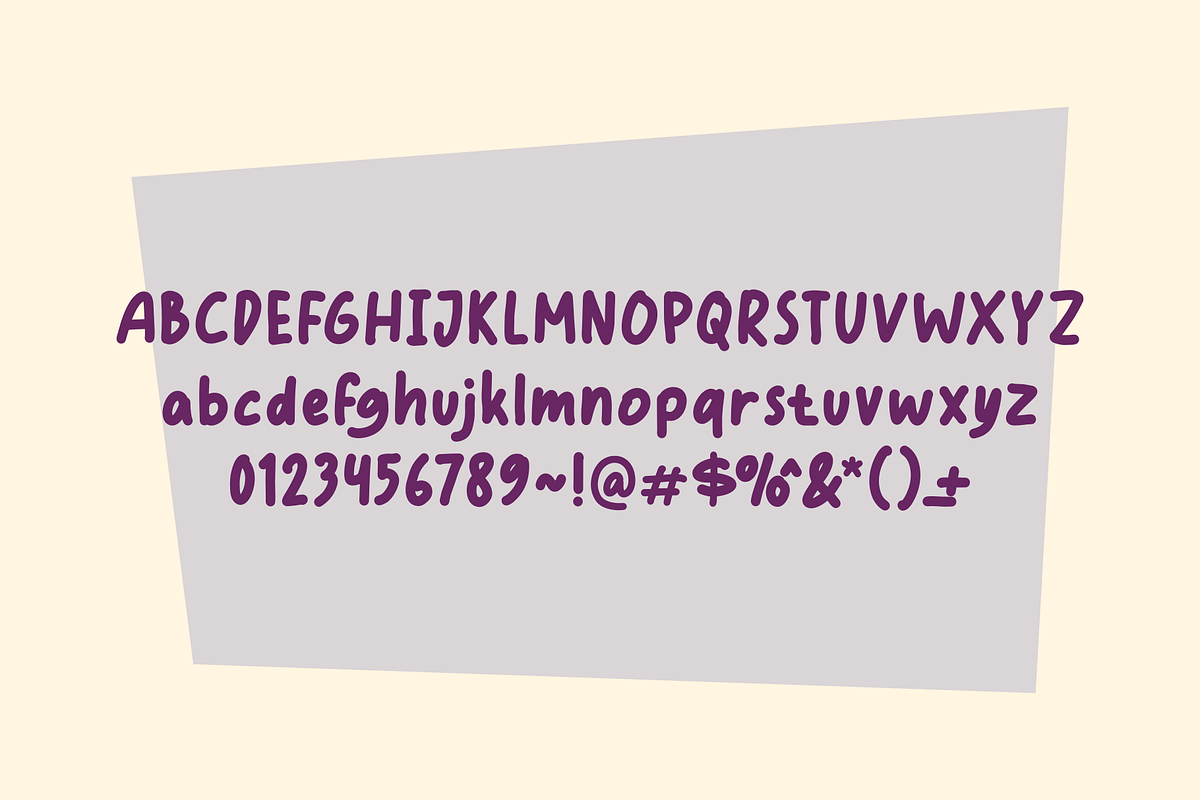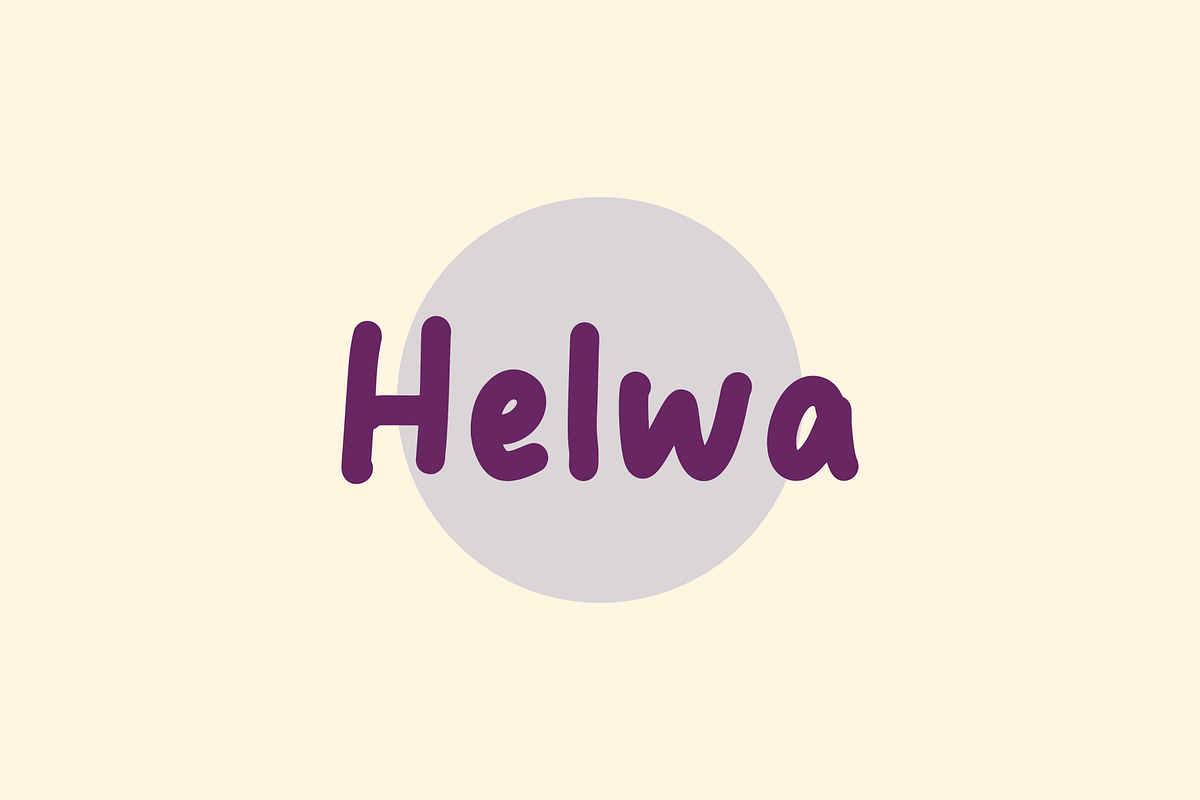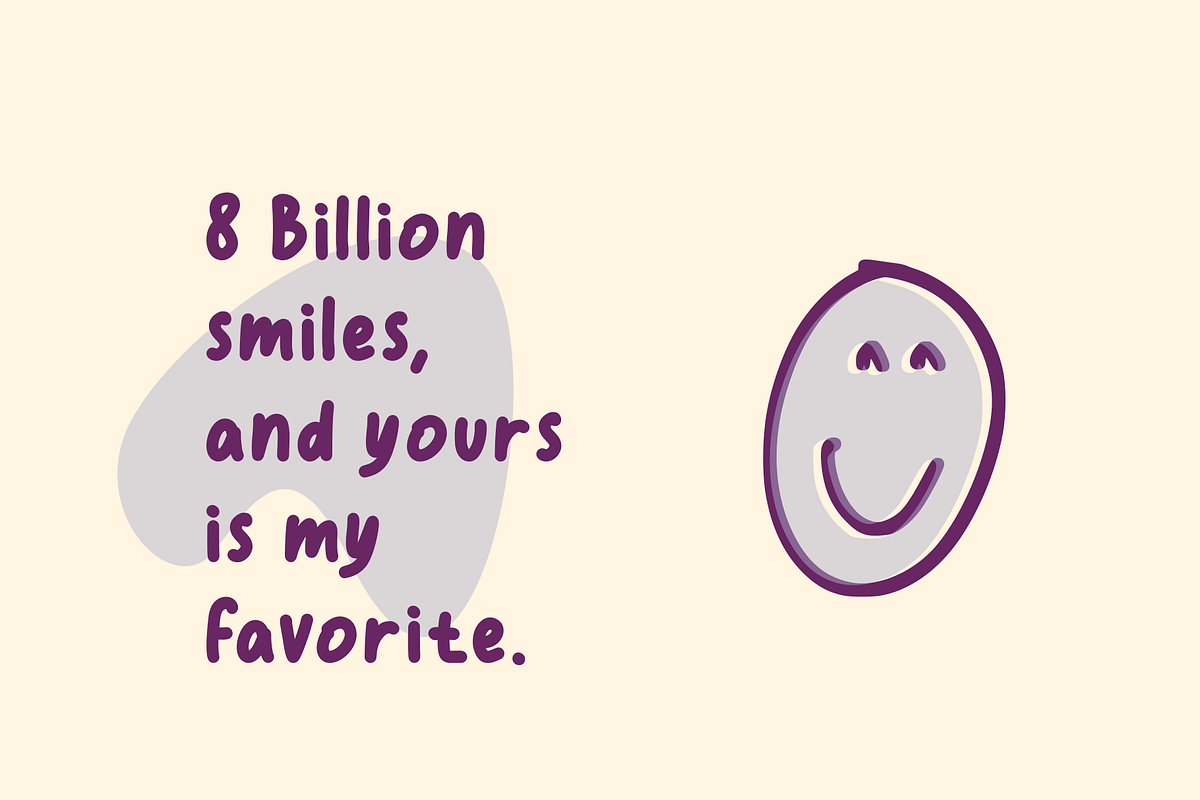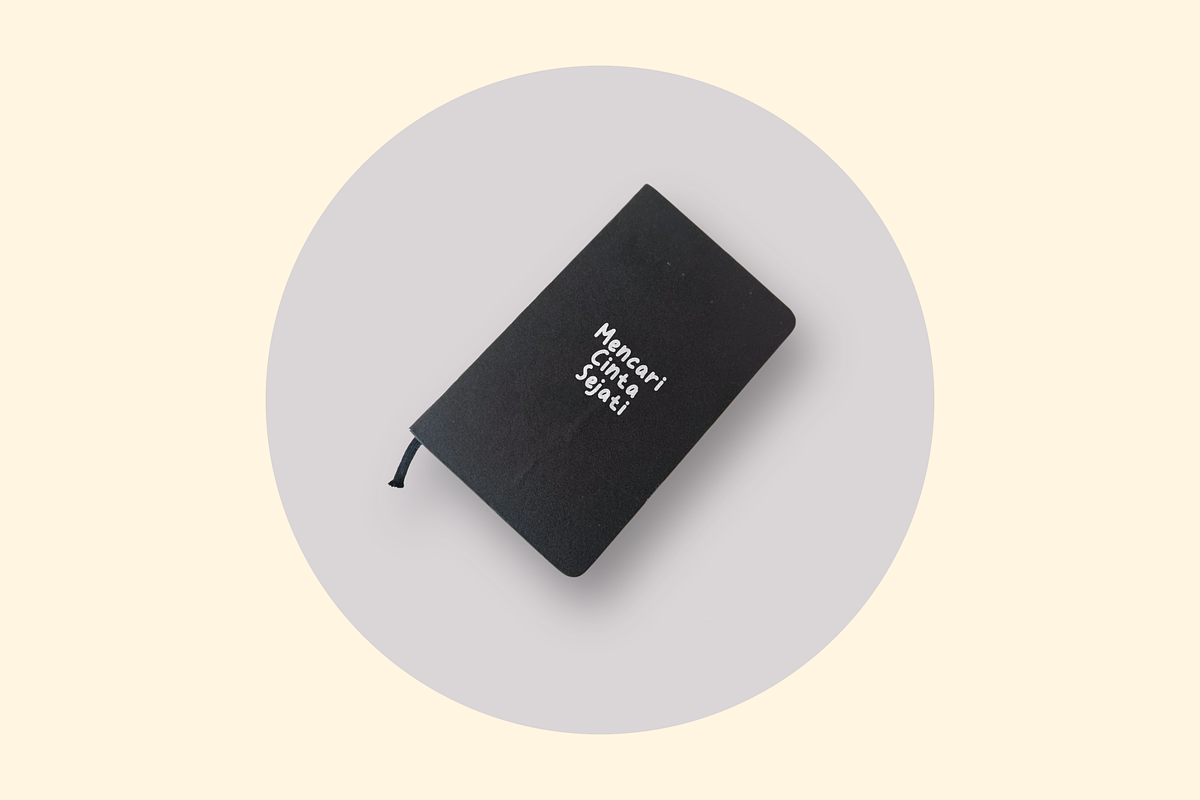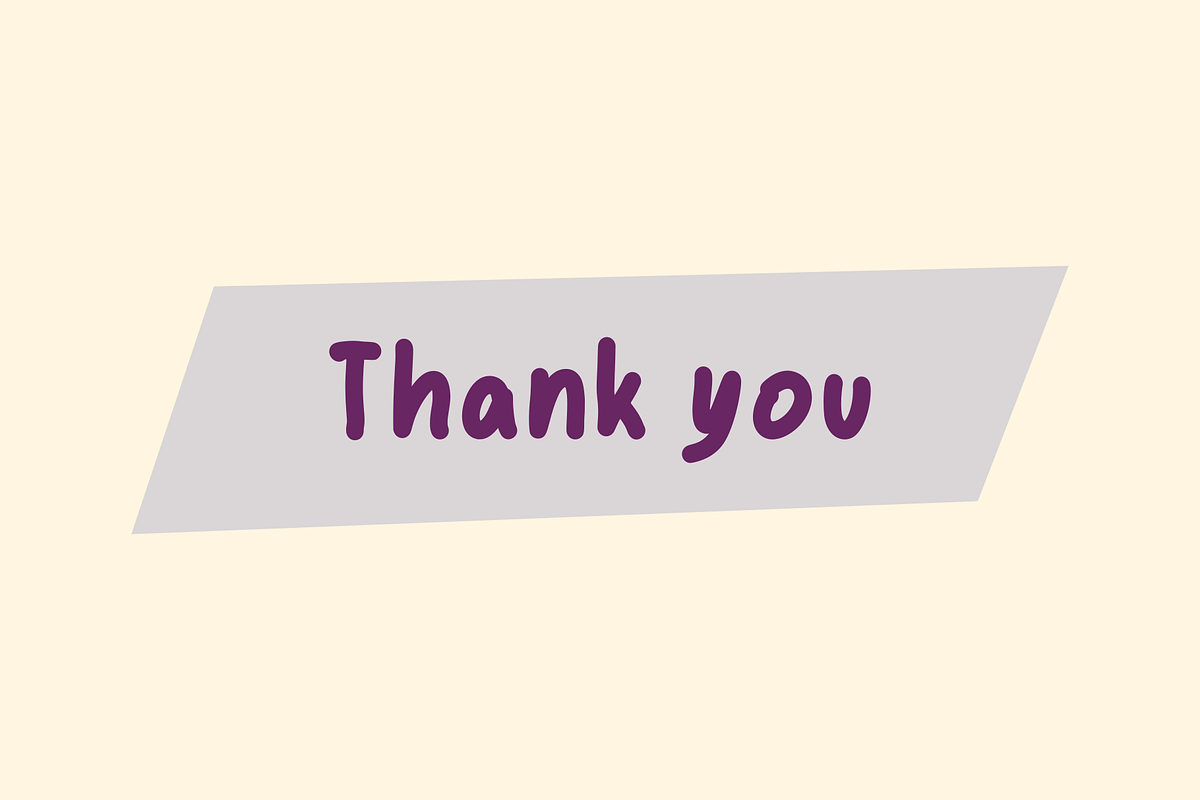
Helwa
Helwa font exudes a sense of effortless elegance with its beautifully crafted handwritten style. Ideal for a wide spectrum of design applications, including packaging, book covers, and apparel, Helwa seamlessly combines the charm of hand-drawn elements with a touch of modernity. The flowing lines of this font capture attention and add a distinct personality to your creations. Whether adorning a book cover, gracing a packaging design, or enhancing the appeal of garments, Helwa's handwritten aesthetic brings forth a delightful fusion of artistic expression and functional communication.